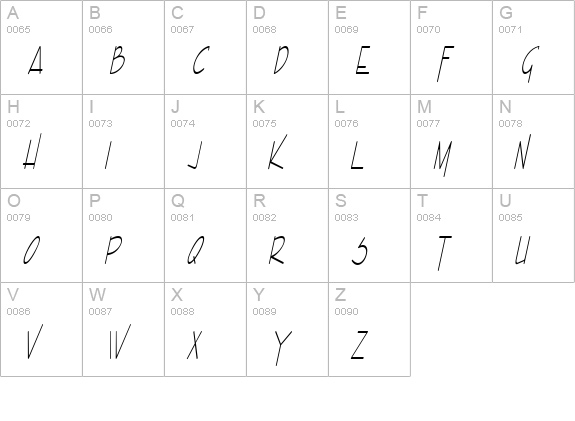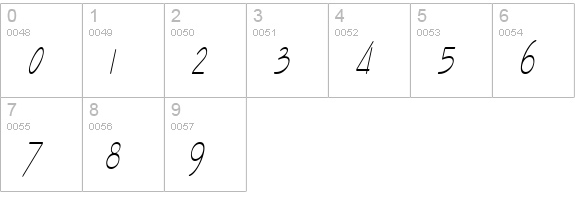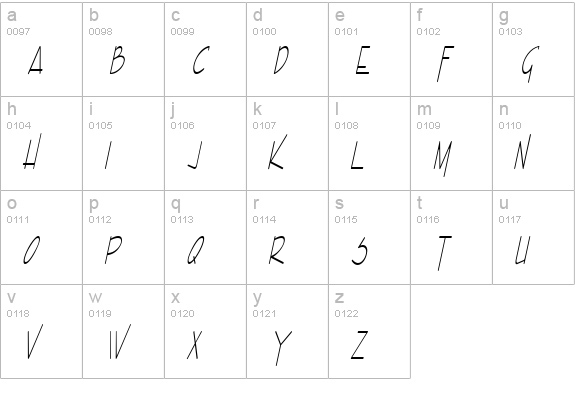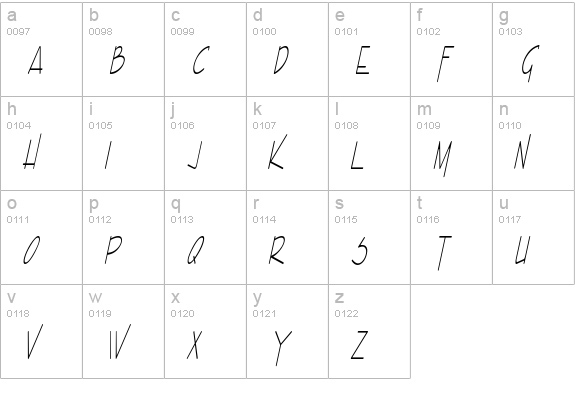
Enview Xtra Light Italic is a refined, elegant, italic variant in the Enview typeface family \xE2\x80\x94 well suited to elegant body text, refined sub-headings, and luxury branding.
Enview Xtra Light Italic is a sleek and elegant font that exudes sophistication and modernity. Its delicate and flowing italic design adds a touch of style to any project, making it perfect for creating a polished and refined look. The lightweight nature of this font gives it a subtle and airy appearance, making it ideal for use in a variety of design applications. Enview Xtra Light Italic is not only visually appealing but also highly versatile, making it suitable for a wide range of projects including branding, editorial design, and web content. Its clean lines and graceful curves make it a popular choice for those looking to add a touch of sophistication to their designs. The best part is that Enview Xtra Light Italic is available for free download at FontsMarket.com. So whether you're a designer looking to elevate your projects or a business owner wanting to enhance your branding, this font is the perfect choice for adding a touch of elegance and style. Download Enview Xtra Light Italic today and see how it can elevate your designs to the next level.